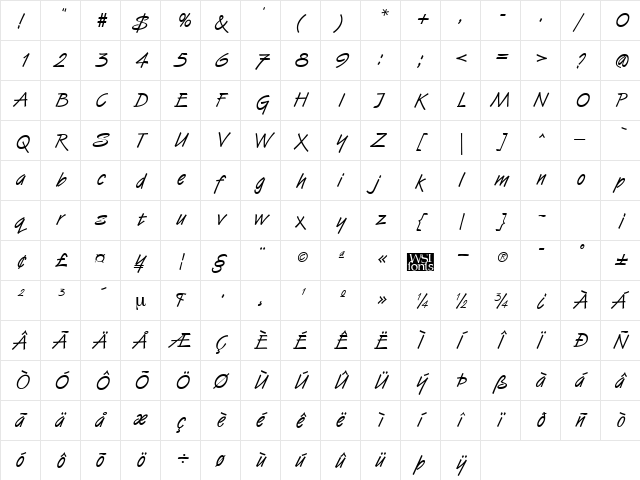
HandStroke Regular
Design Context for HandStroke Typeface
HandStroke brings a calligraphic fluidity to the page — its connecting strokes and expressive curves give it an unmistakably human quality.
Font Pairing: Combine HandStroke with a simple geometric sans for maximum contrast — the tension between flowing curves and clean structure is a classic typographic pairing.
Pro Tip: Pair HandStroke with a clean sans-serif for supporting text. The contrast between fluid script and geometric structure creates an elegant typographic hierarchy.